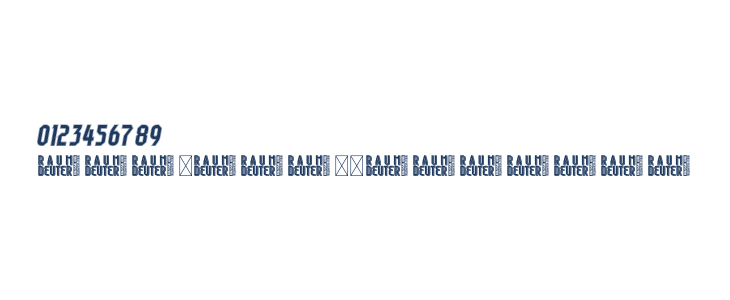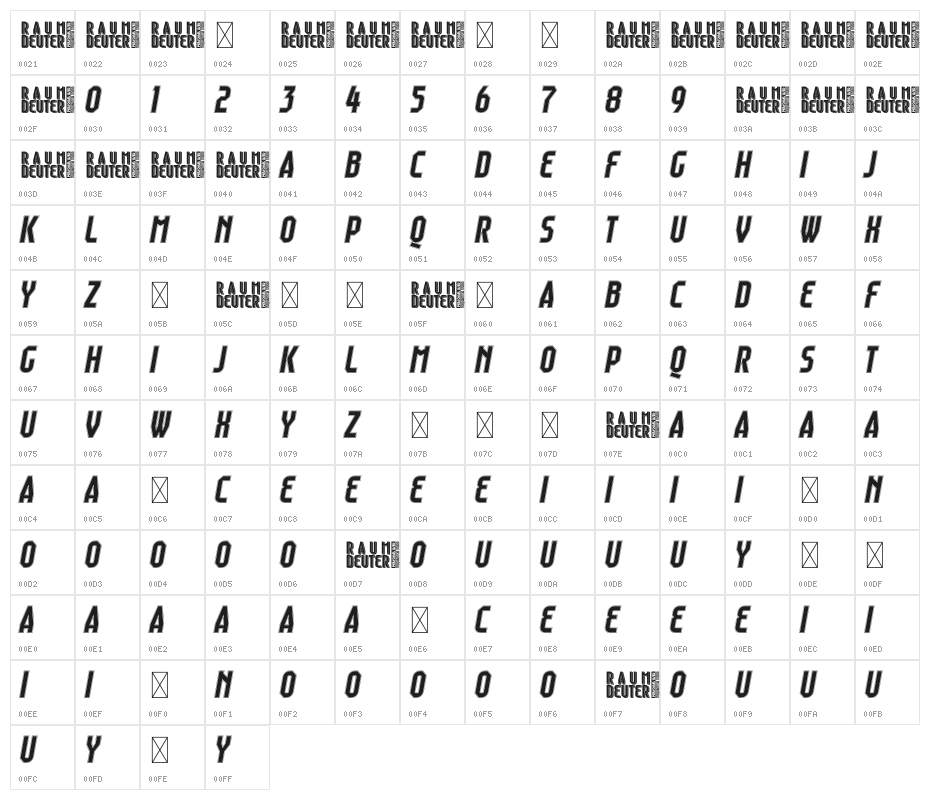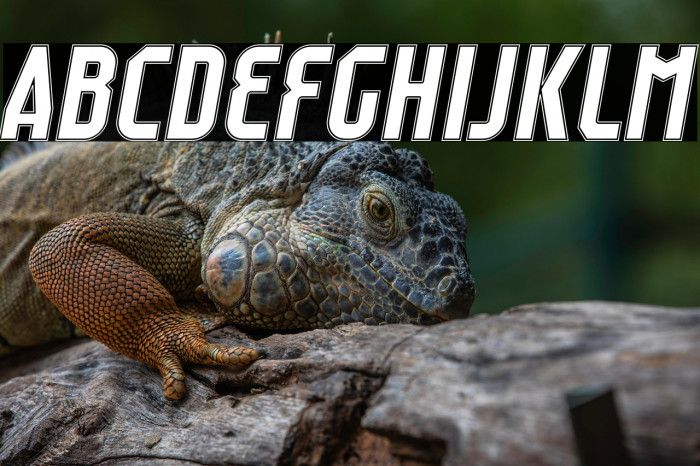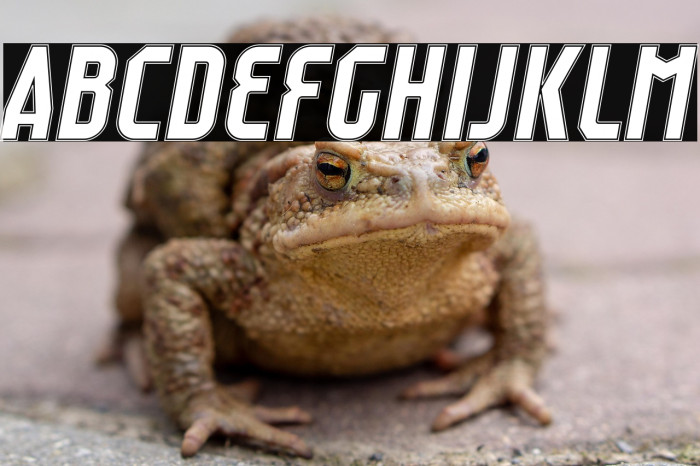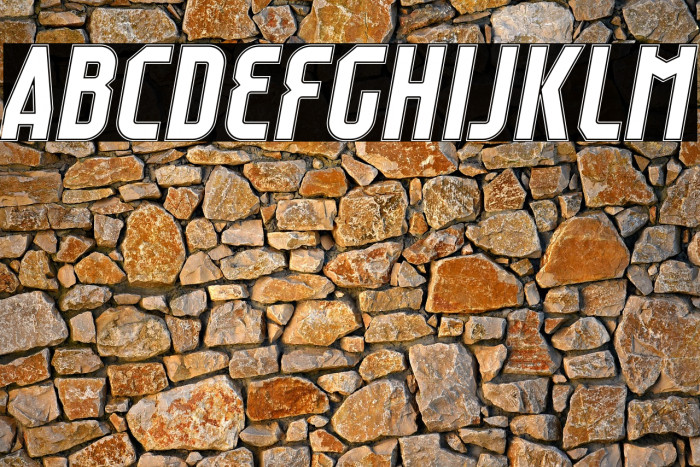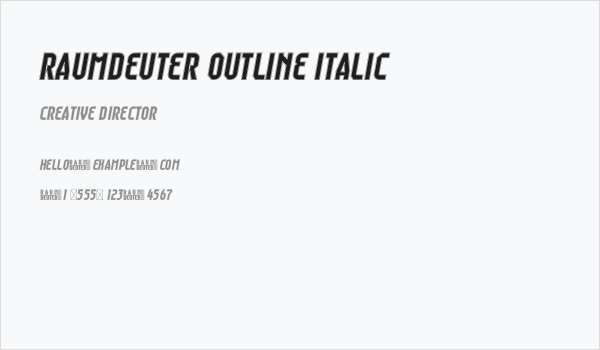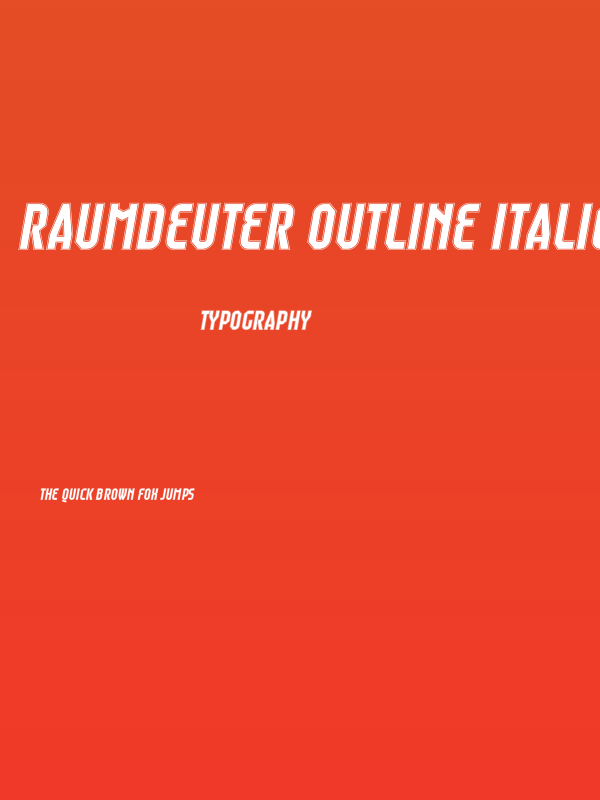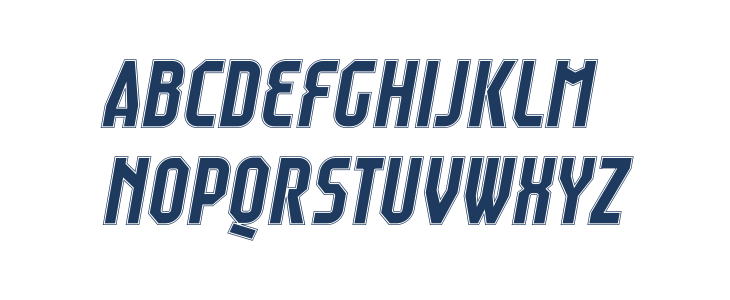
Raumdeuter Outline Italic Font
Raumdeuter Outline Italic Description
This font features a bold, angular design with a distinct outline style that gives it a modern and edgy appearance. The italicized slant adds a dynamic and forward-moving feel, making it ideal for attention-grabbing headlines and titles. The characters are well-defined with sharp edges and a consistent stroke width, contributing to its bold presence. The spacing between characters is slightly tight, enhancing its compact and cohesive look. The font's unique style makes it suitable for creative and contemporary projects.